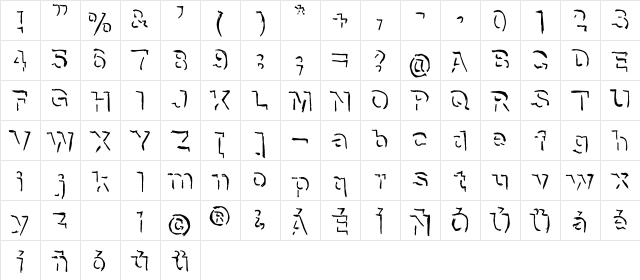
NeNe_WeNo Shadow HandWrite Regular
Design Context for NeNe_WeNo Shadow HandWrite Typeface
NeNe_WeNo Shadow HandWrite flows with the natural rhythm of handwritten lettering, making it ideal for designs that call for warmth and personal expression.
Font Pairing: Combine NeNe_WeNo Shadow HandWrite with a simple geometric sans for maximum contrast — the tension between flowing curves and clean structure is a classic typographic pairing.
Pro Tip: Pair NeNe_WeNo Shadow HandWrite with a clean sans-serif for supporting text. The contrast between fluid script and geometric structure creates an elegant typographic hierarchy.